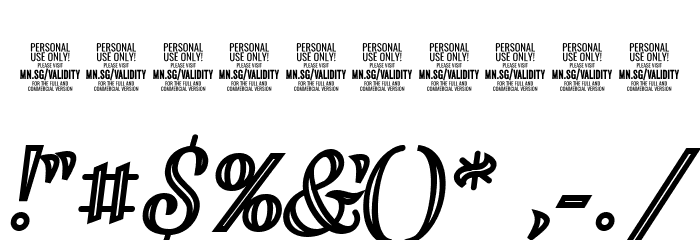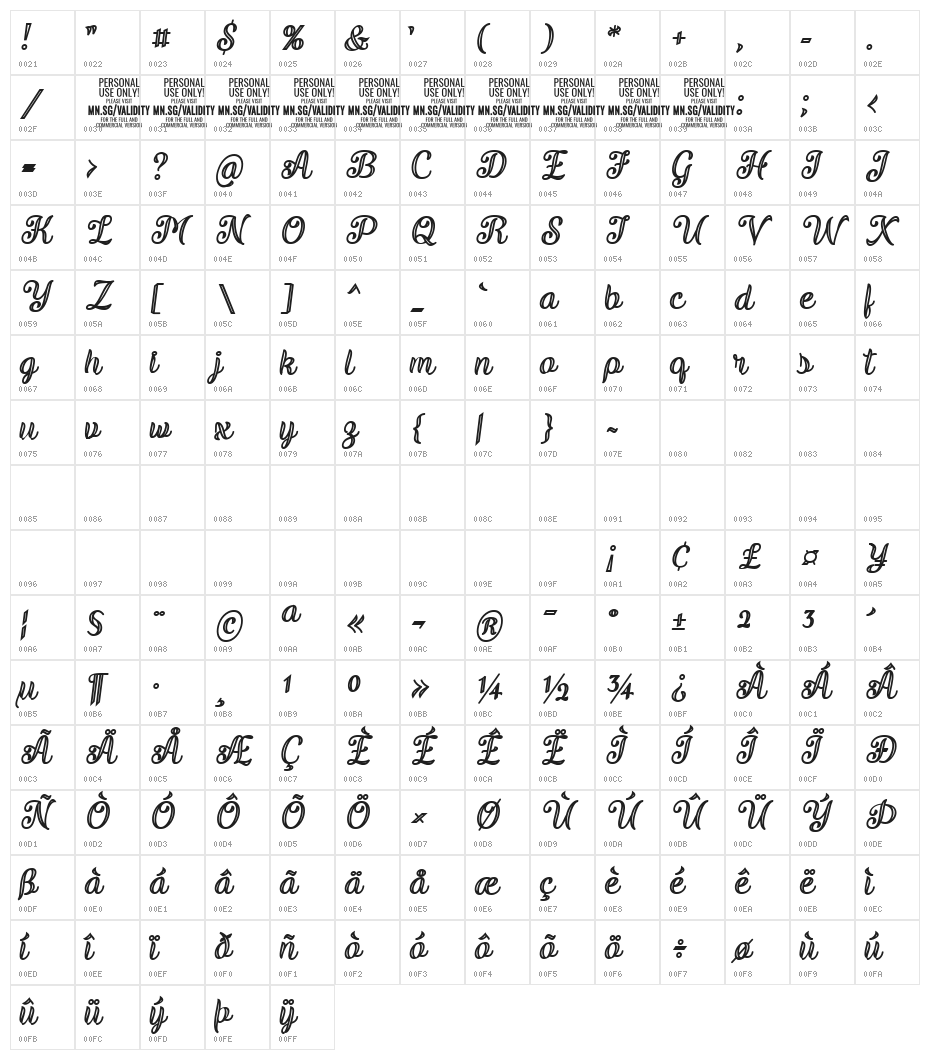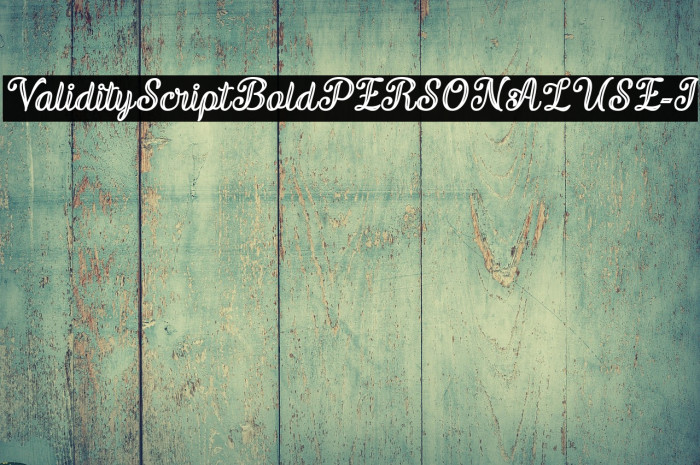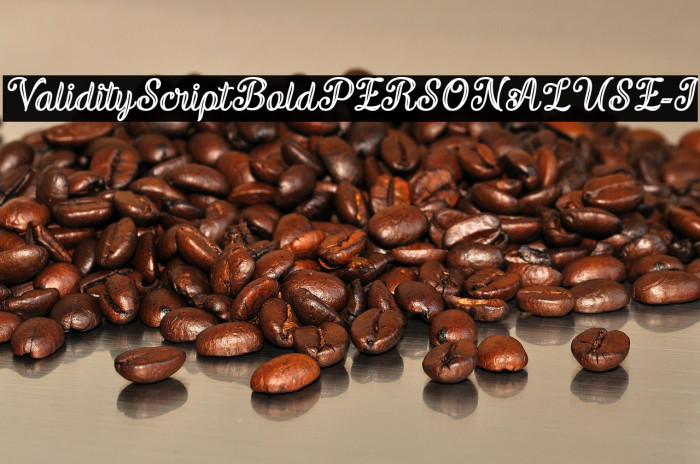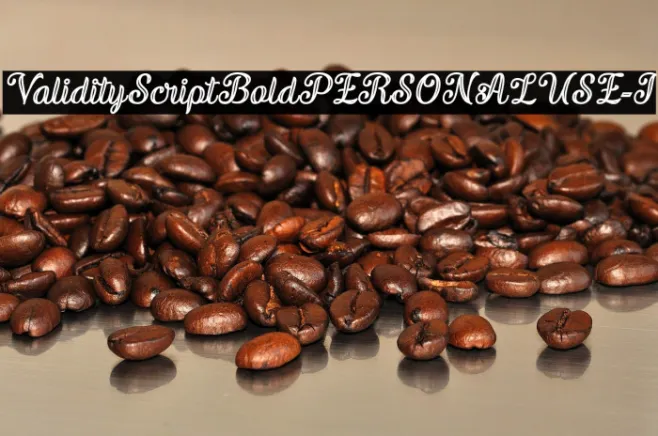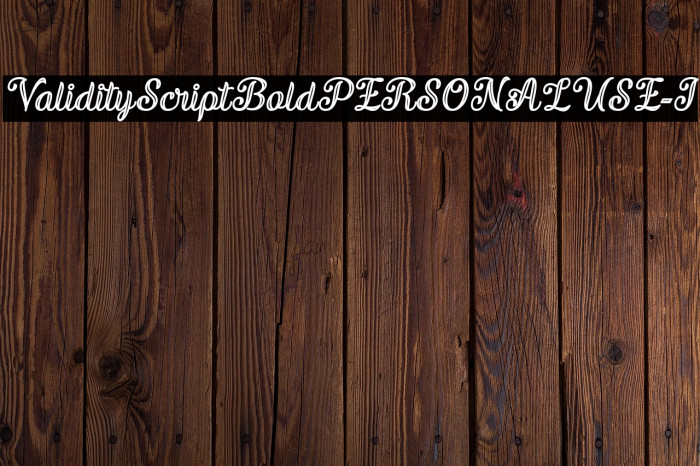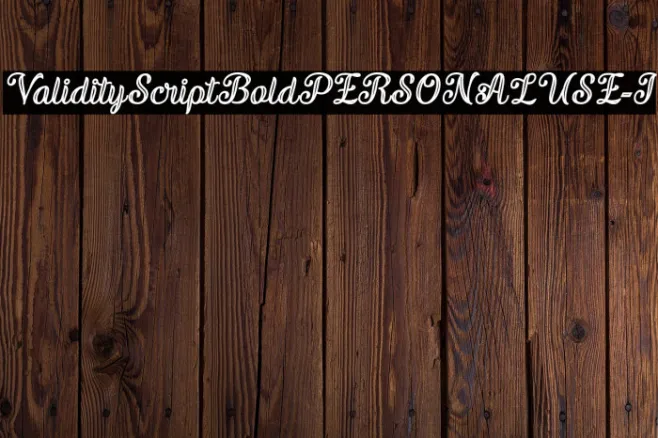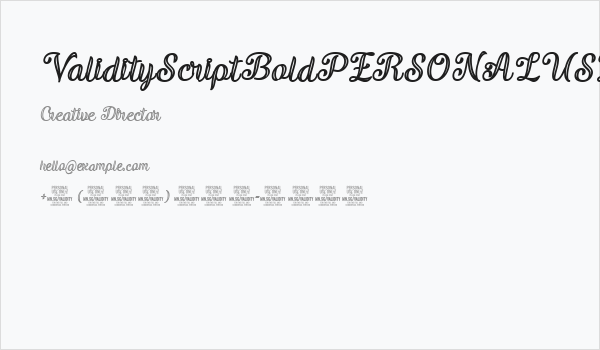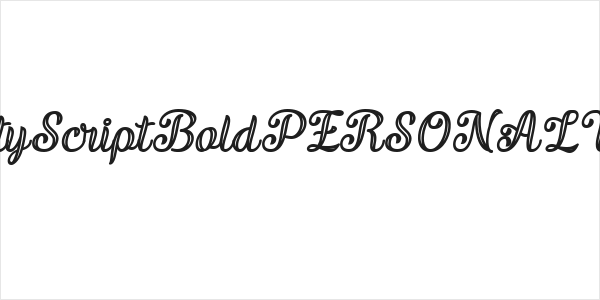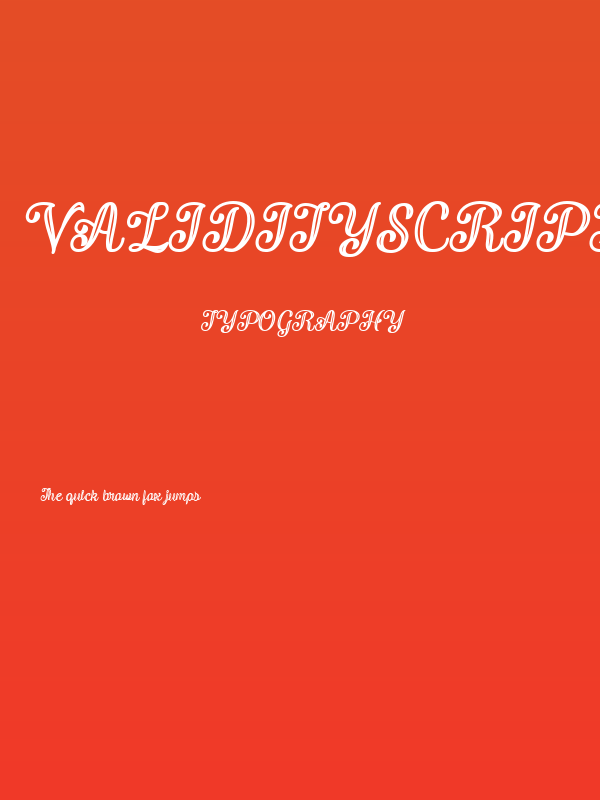
ValidityScriptBoldPERSONALUSE-I Font
ValidityScriptBoldPERSONALUSE-I Description
This font features a bold and flowing script style, characterized by its elegant and cursive letterforms. The uppercase letters are ornate, with swashes and loops that add a decorative flair. The lowercase letters maintain a consistent flow, enhancing readability while retaining a stylish appearance. The numerals and special characters are designed to match the overall aesthetic, ensuring a cohesive look across all text. This font's bold weight and smooth curves make it suitable for creating eye-catching designs.